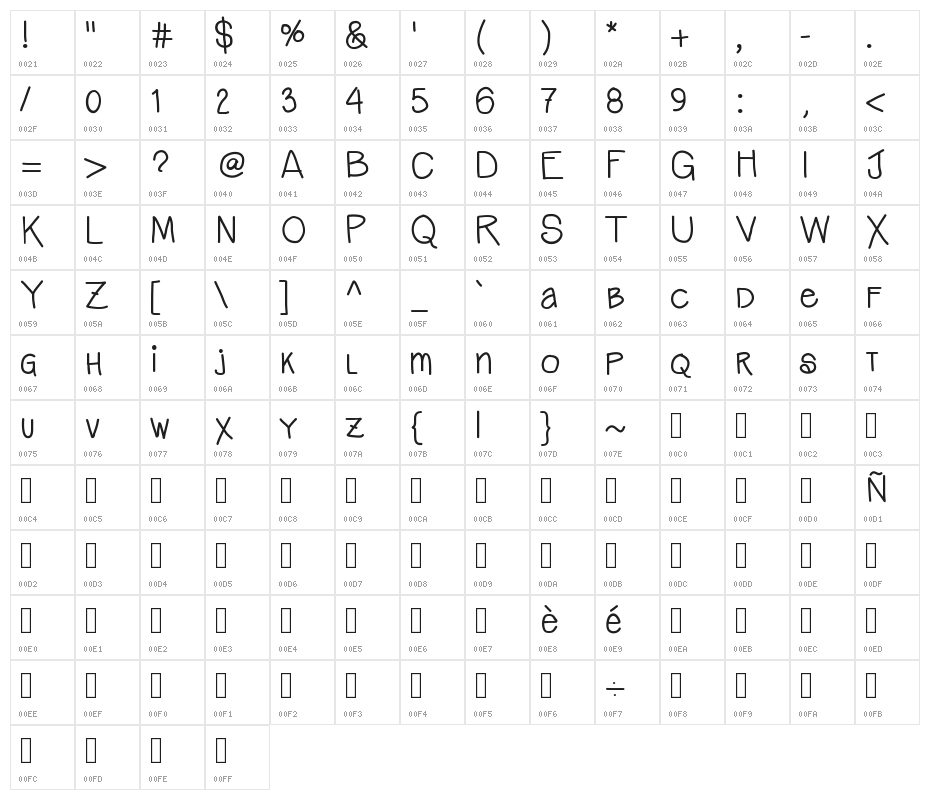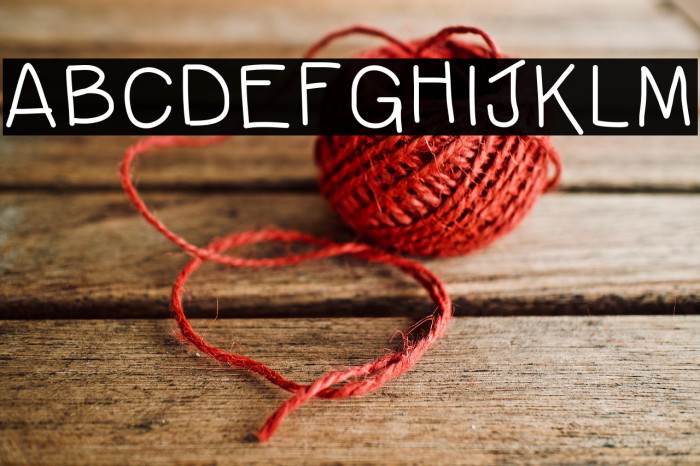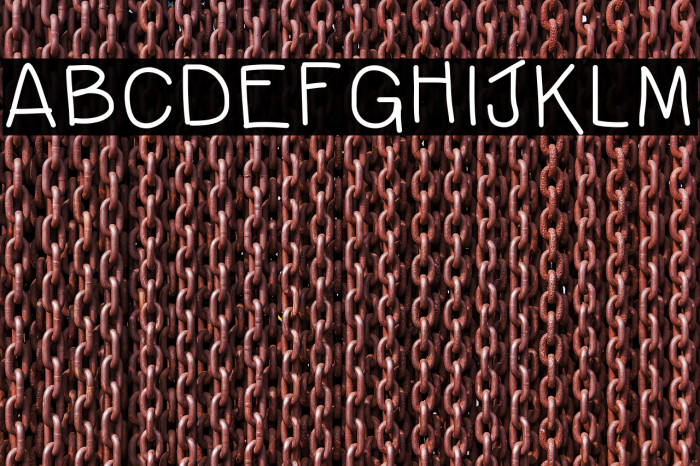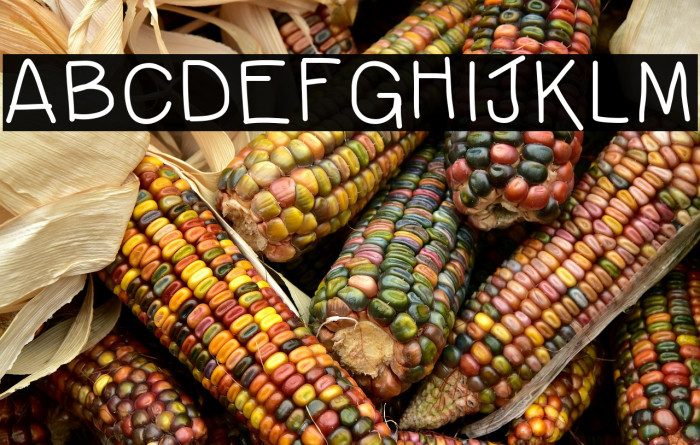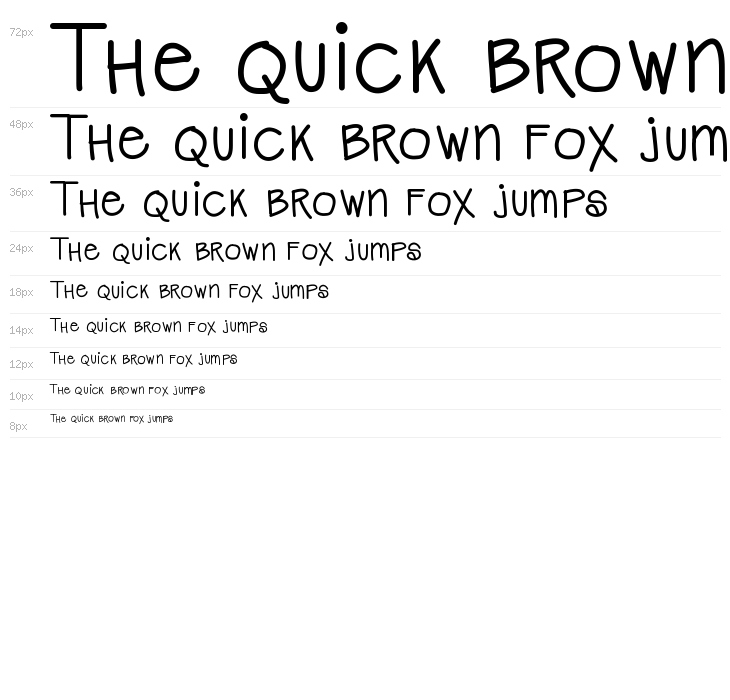
AniLindley Font
AniLindley Description
This playful and whimsical font features a handwritten style with a casual, friendly appearance. The characters are slightly irregular, adding to its charm and approachability. The uppercase and lowercase letters maintain a consistent flow, with rounded edges and a slightly uneven baseline that enhances its informal look. The numerals and special characters follow the same playful design, making it versatile for various creative projects. Its unique style makes it ideal for projects that require a personal touch or a fun, lighthearted feel.